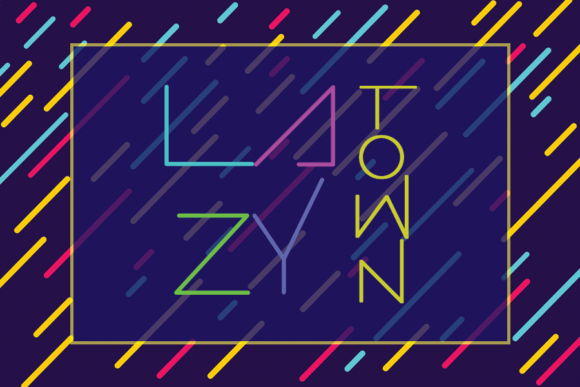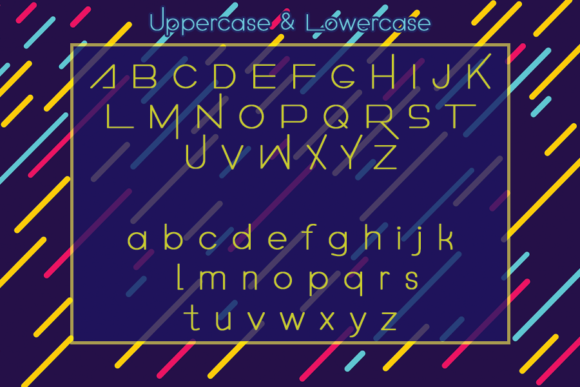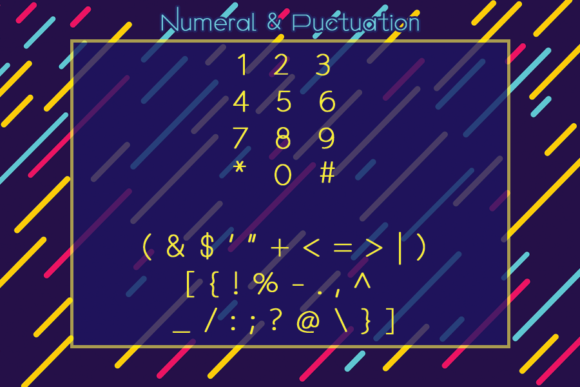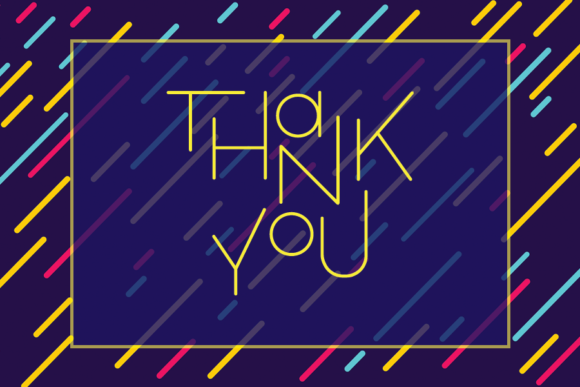
Introducing Automatic: The Ultimate Modern Display Font
In the world of typography, fonts play a crucial role in conveying messages, expressing emotions, and creating visual identities. For designers, crafters, and anyone looking to add a touch of uniqueness to their projects, Automatic is a game-changing display font that has arrived just in time. This thin, modern, and minimalist font is designed to elevate your designs, making it perfect for web designs, business cards, and a wide range of creative projects.
The Essence of Automatic Font
Automatic is not just another font; it’s a statement piece. Its sleek and clean lines exude a sense of sophistication and elegance, making it an ideal choice for projects that demand a modern aesthetic. The font’s minimalist approach ensures that it complements rather than overpowers your content, allowing your message to shine through with clarity and impact.
Key Features of Automatic Font
- Thin and Modern Design: Automatic boasts a remarkably thin design that screams modernity. Its contemporary look is perfect for projects that require a fresh and current feel.
- Minimalist Aesthetic: The font’s minimalist approach makes it incredibly versatile, allowing it to blend seamlessly with a wide range of design styles and themes.
- Display Font: Designed specifically as a display font, Automatic is optimized for headlines, titles, and short texts, where its unique characteristics can be fully appreciated.
- High Versatility: Whether you’re working on web designs, business cards, posters, or any other project that requires a distinctive touch, Automatic proves to be an excellent choice.
Use Cases for Automatic Font
Automatic’s versatility is one of its strongest assets. Here are some of the best use cases for this remarkable font:
- Web Designs: Elevate your website’s header, titles, and even short paragraphs with Automatic. Its readability and modern look make it perfect for digital platforms.
- Business Cards: Make a lasting impression with business cards that feature Automatic. The font’s elegance and sophistication are sure to reflect positively on your professional image.
- Branding and Logos: For brands looking to establish a modern and sleek identity, Automatic can be a valuable asset in creating logos, taglines, and marketing materials.
- Posters and Flyers: Add a touch of uniqueness to your promotional materials with Automatic. Its eye-catching design ensures that your posters and flyers stand out.
Tips for Using Automatic Font Effectively
To make the most of Automatic, consider the following tips:
- Pair with Complementary Fonts: For optimal results, pair Automatic with fonts that complement its minimalist and modern aesthetic. Serif fonts or rounded sans-serifs can create a nice contrast.
- Experiment with Sizes: Automatic’s thin design means it can get lost in very small sizes. Experiment with different sizes to find the perfect balance for your project.
- Play with Colors: While Automatic works well in black and dark colors, don’t be afraid to experiment with different colors to match your brand’s palette or project theme.
Automatic is more than just a font; it’s a design statement. Its modern, minimalist, and thin design makes it a versatile tool for designers and crafters looking to add a unique touch to their projects. Whether you’re creating web designs, business cards, or any other material that requires a distinctive look, Automatic is sure to deliver. Embrace the elegance and sophistication of Automatic and elevate your designs to new heights.